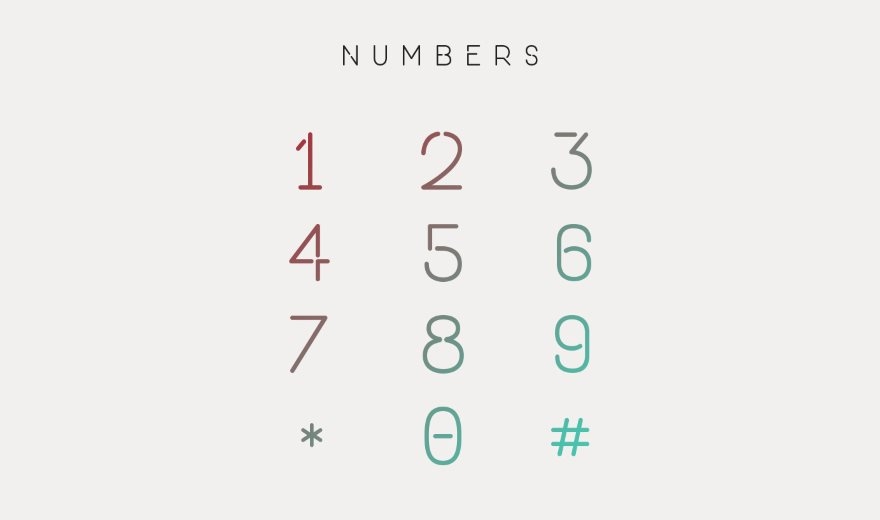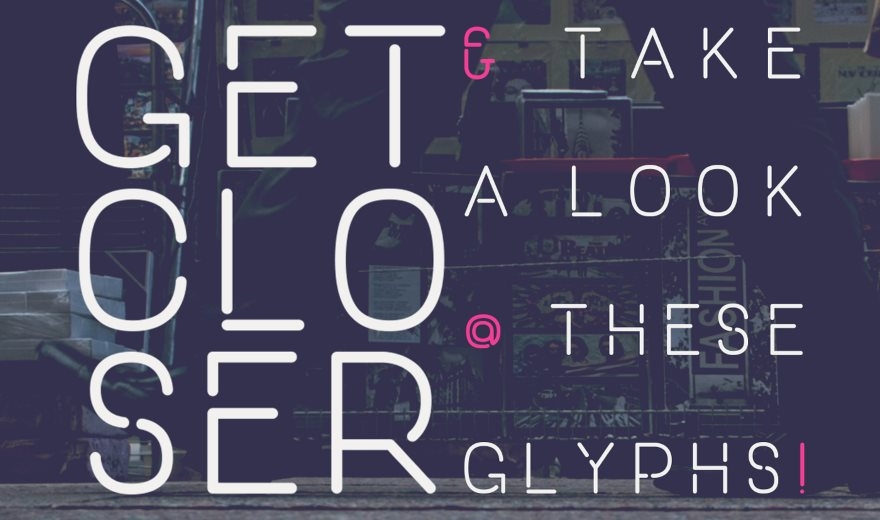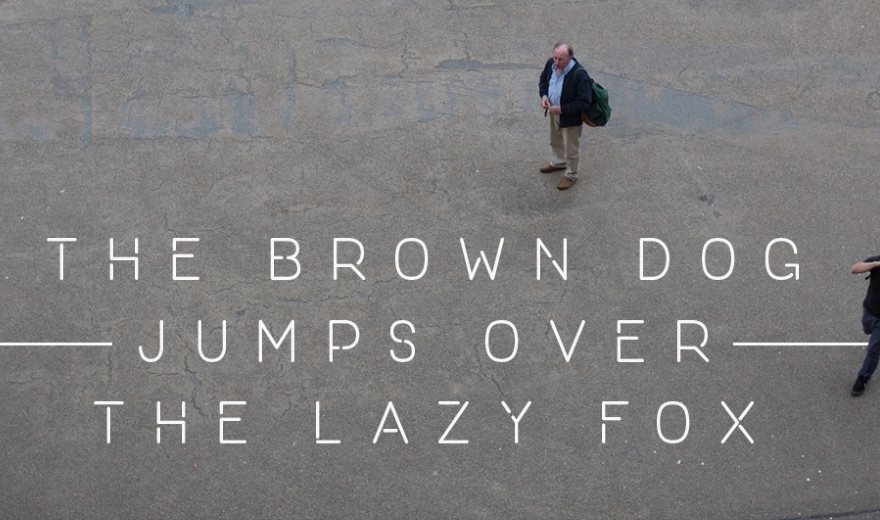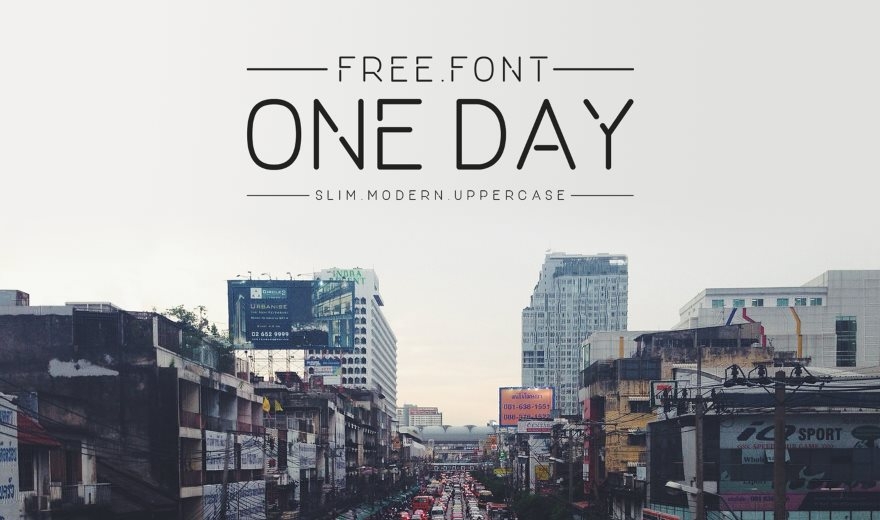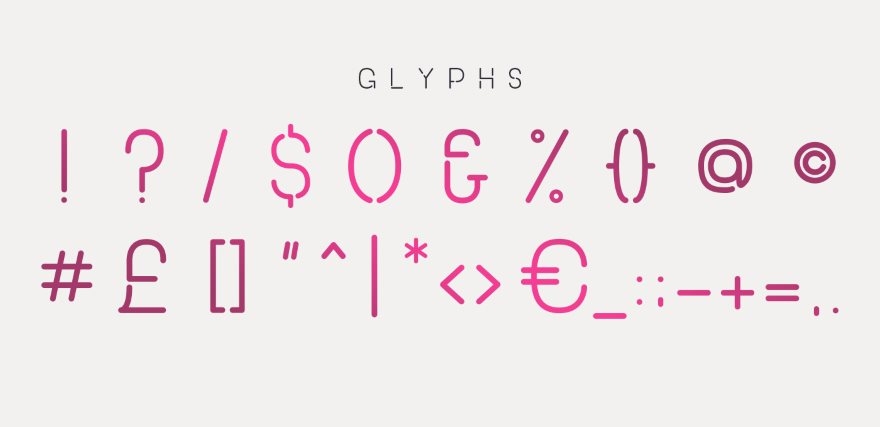
Download a free elegant stencil font One Day. This font could work perfectly to create headlines, covers, advertisements and graphic posters. You can download it for free or donate $5 to its creator here.